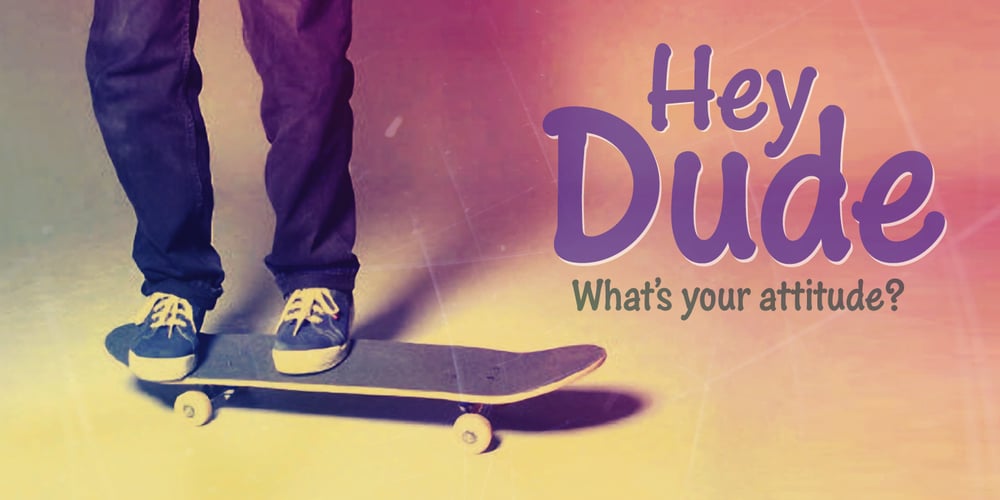
Hey Dude Font Family was designed by Bob Alonso, John Bomparte and published by BA Graphics. Hey Dude contains 1 styles and family package options. Hey I’m a cool, casual, confident, down-to-earth, fun-lovin’, bold and friendly, attention-getting dude. Really cool in all caps too!